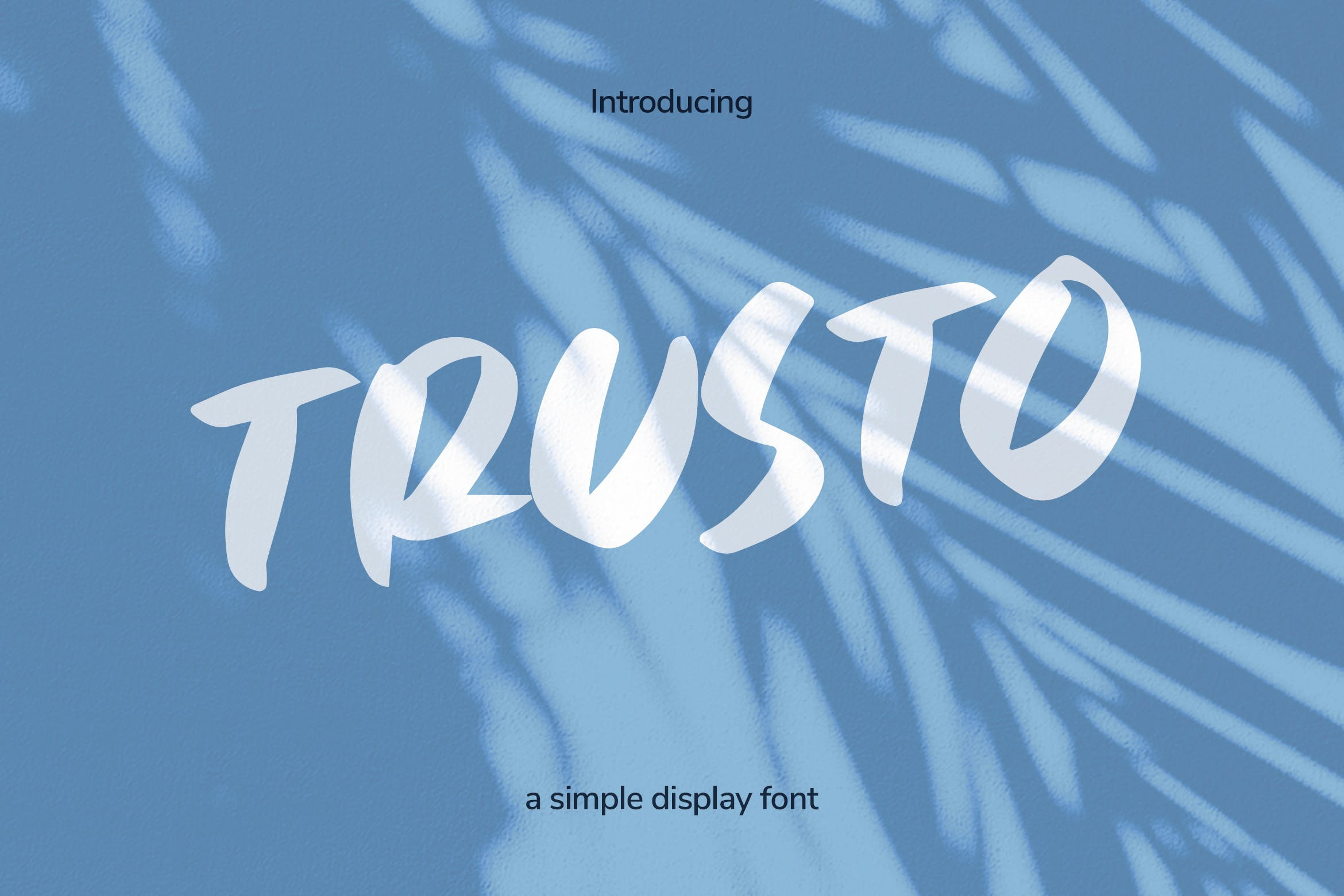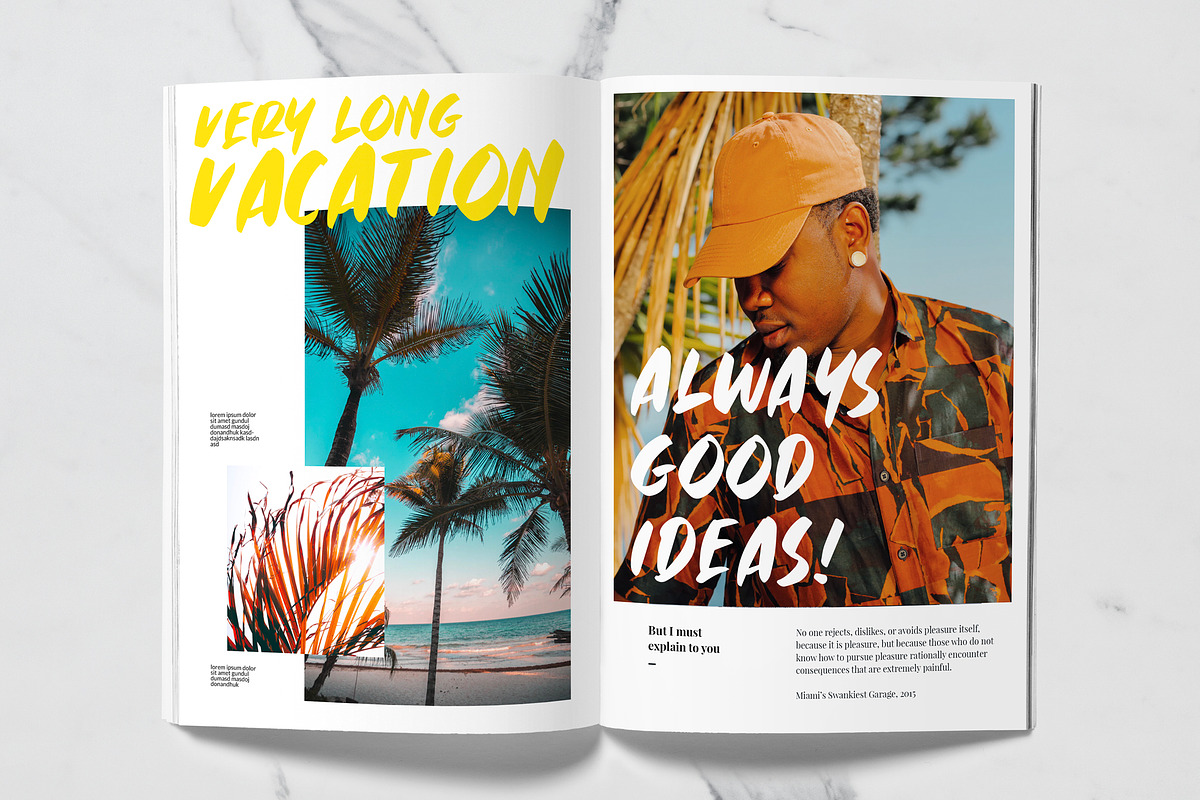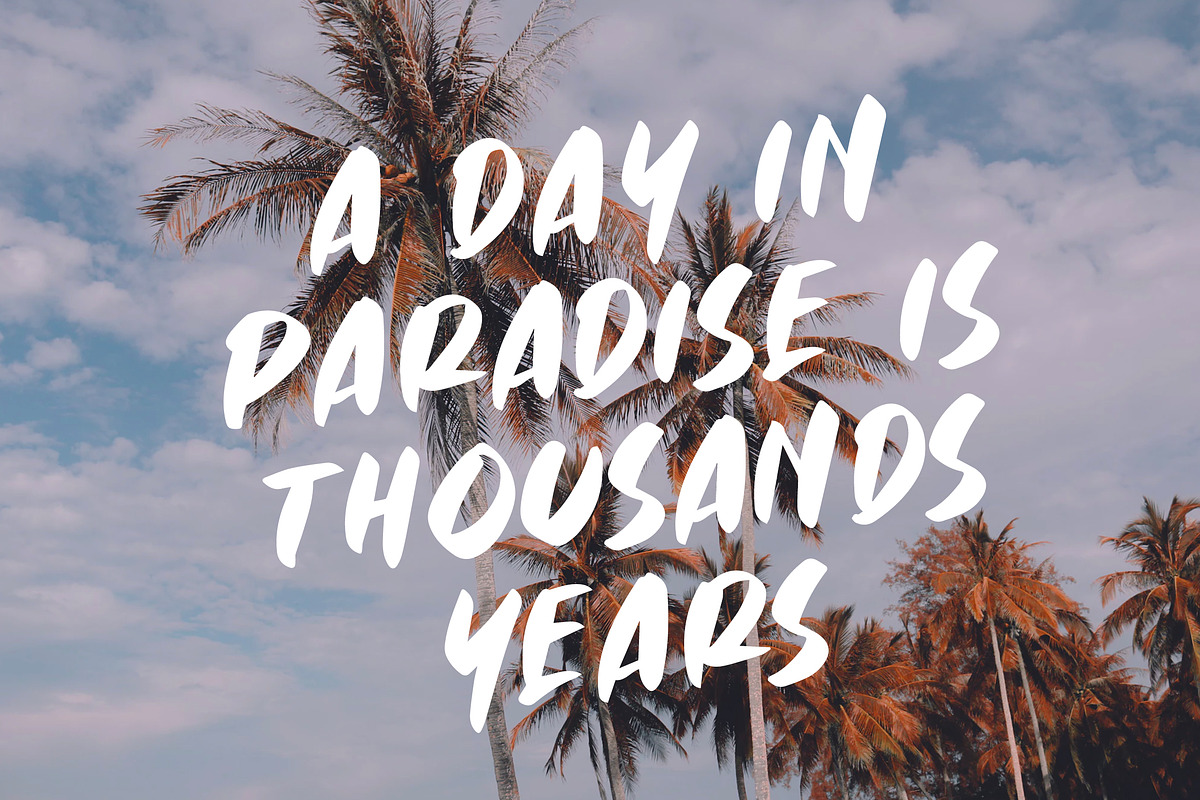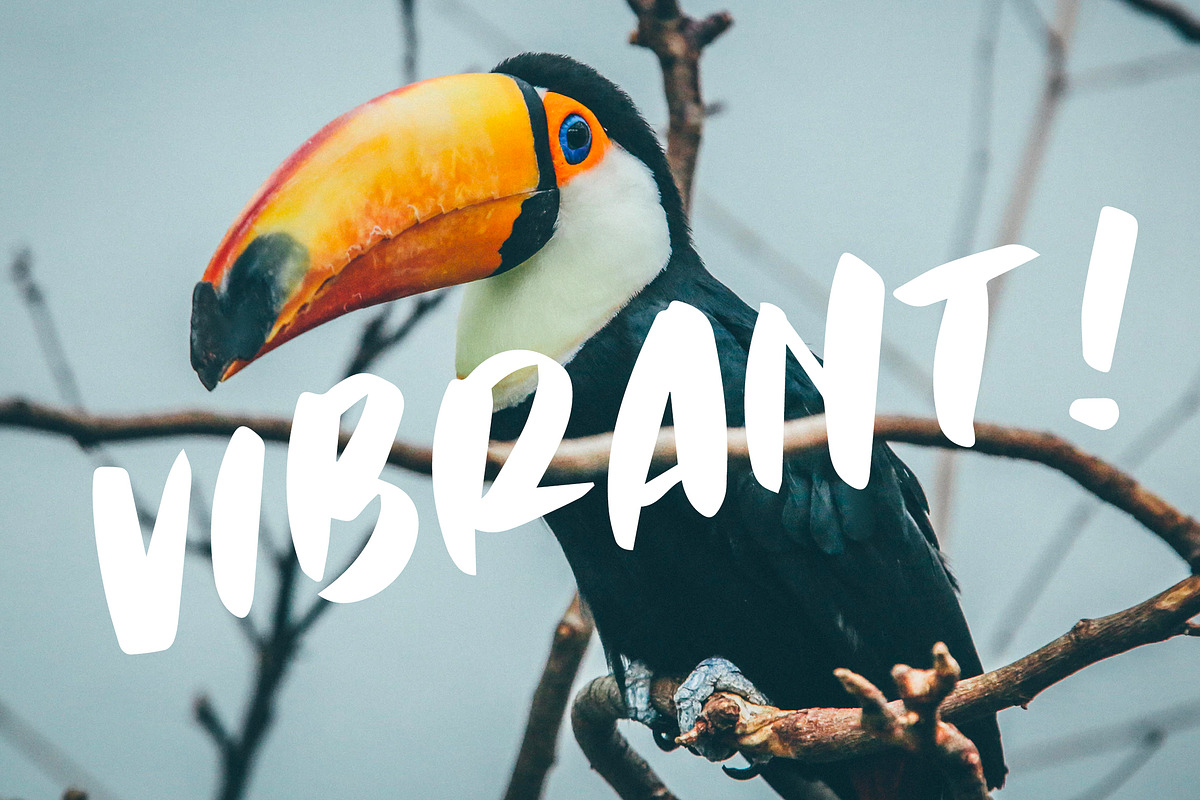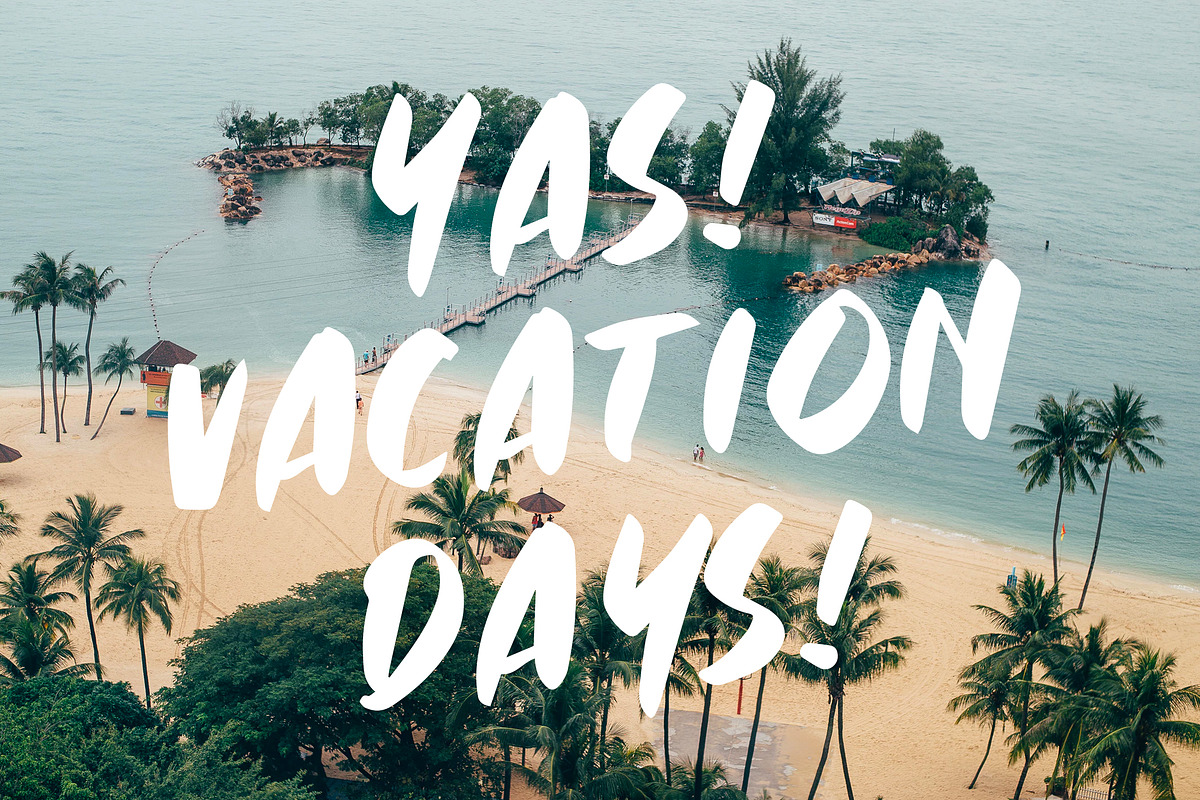
Trusto - Handwritten Font
Introducing TRUSTO, a unique display font from Strokes.ink. This handy sans serif includes a full character, numbers, punctuation & also alternate version. Perfect for big displays, titles, posters, marketing & advertising.
- Alternate glyphs for each lowercase letter
- Numbers & All major punctuation included